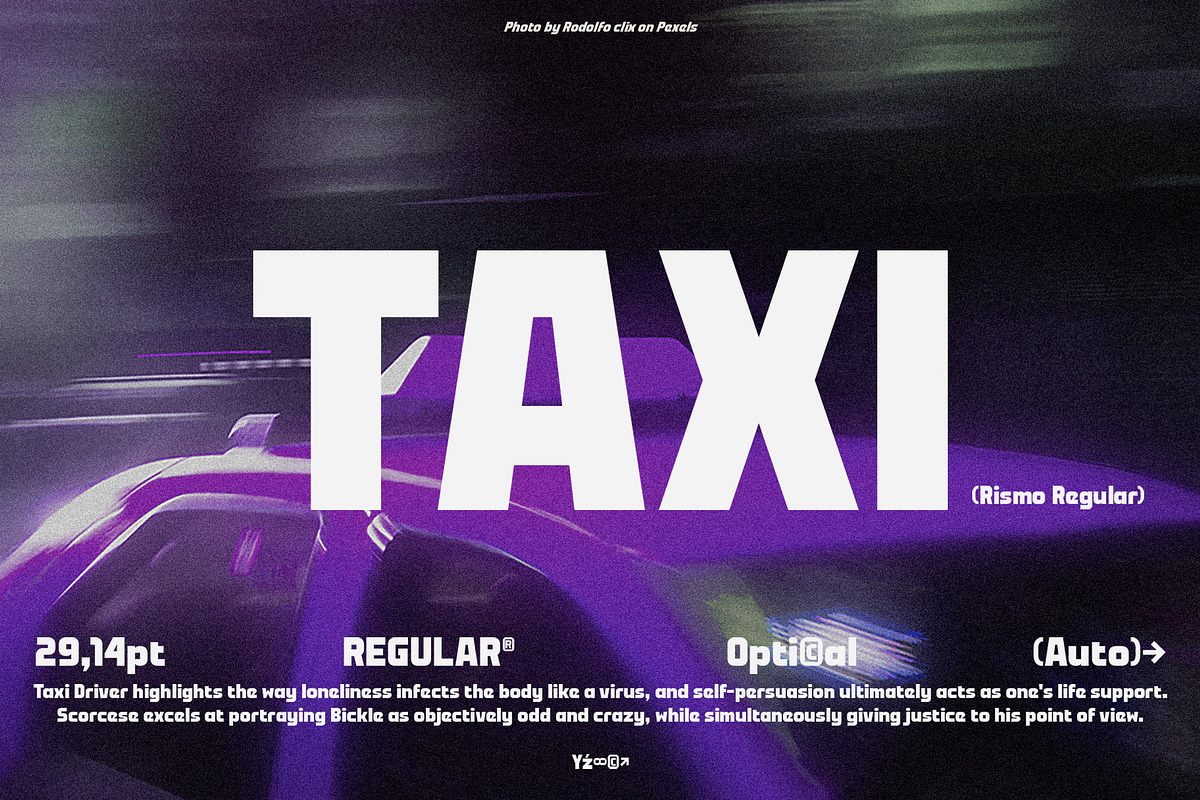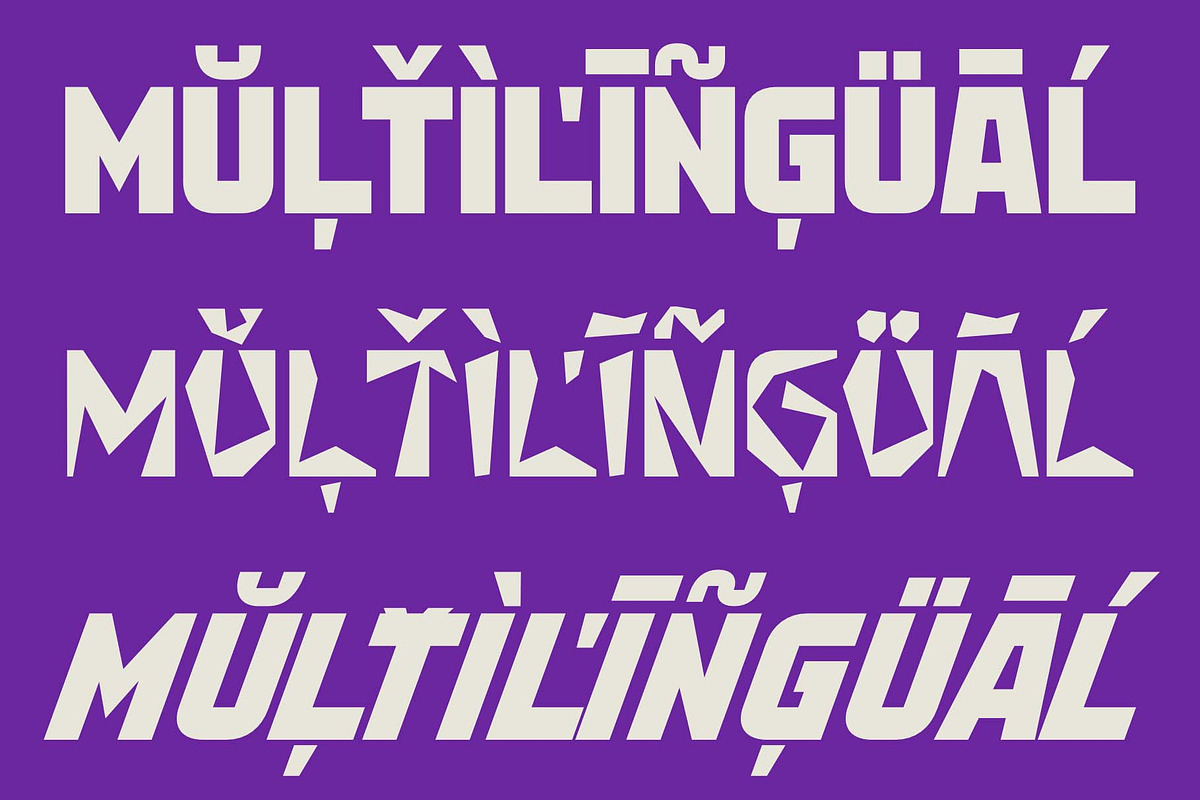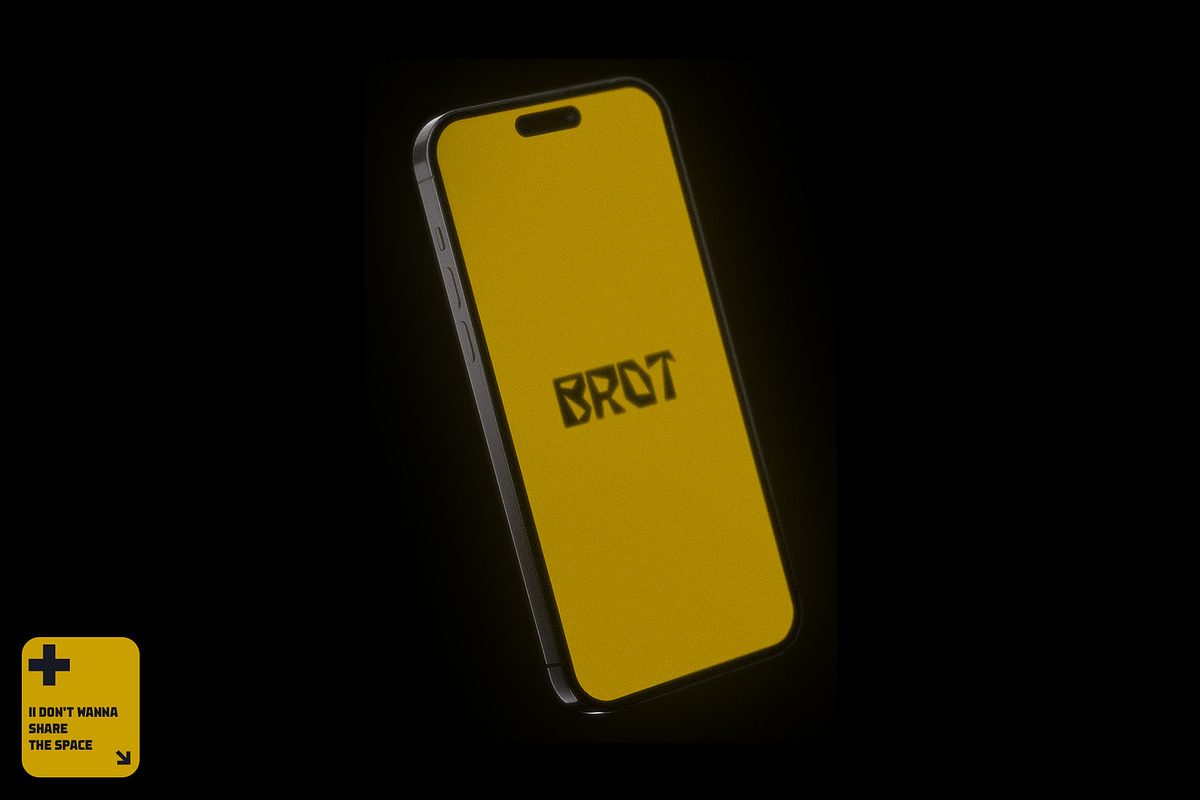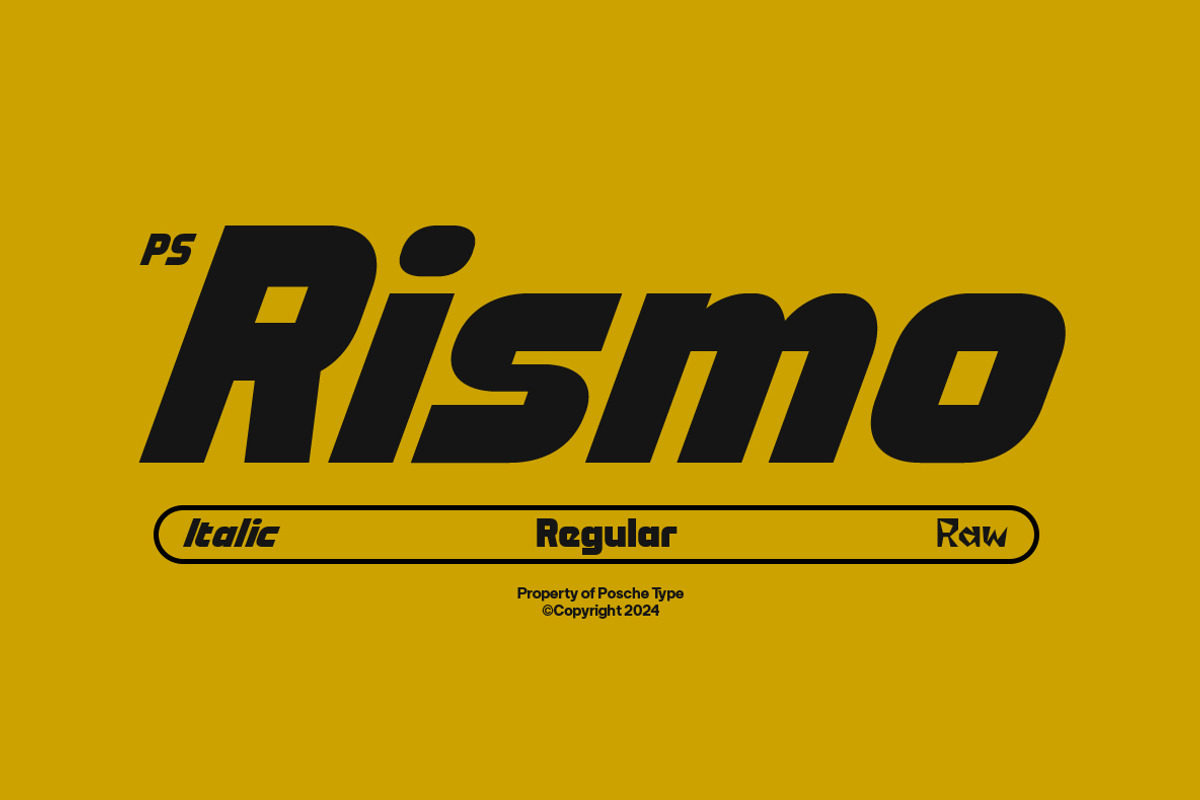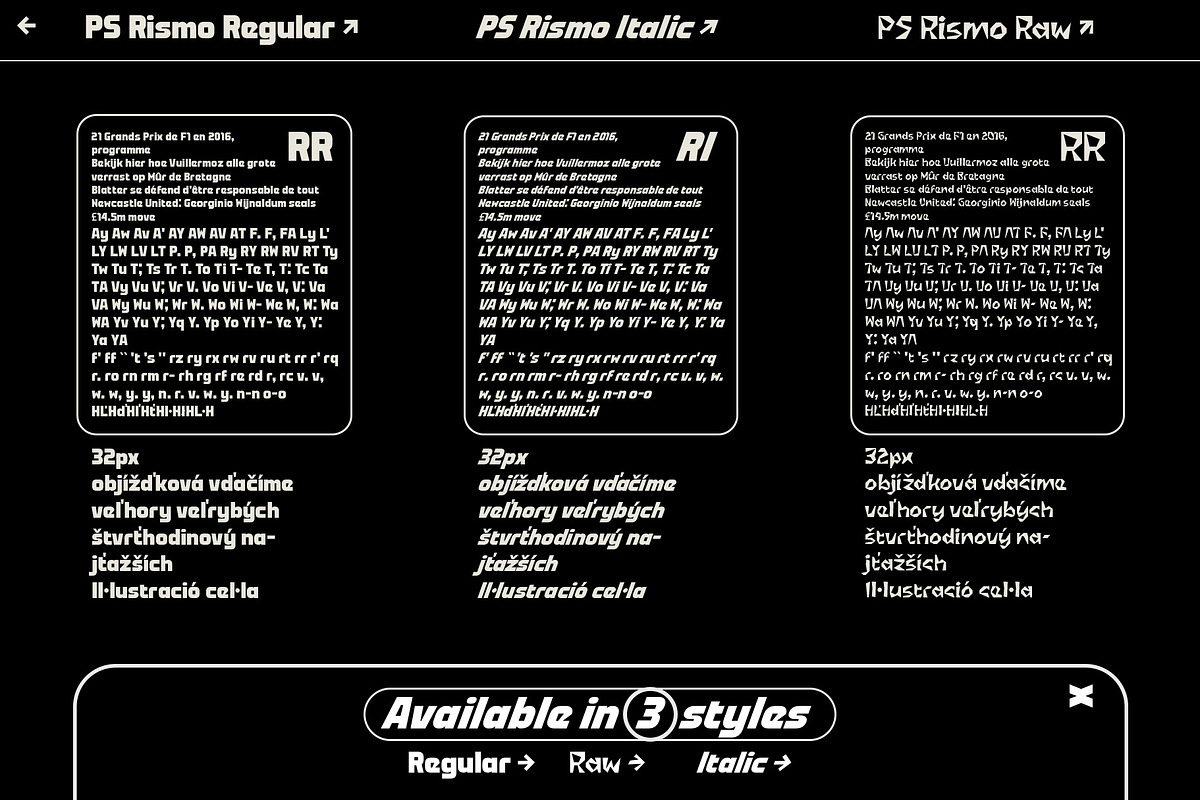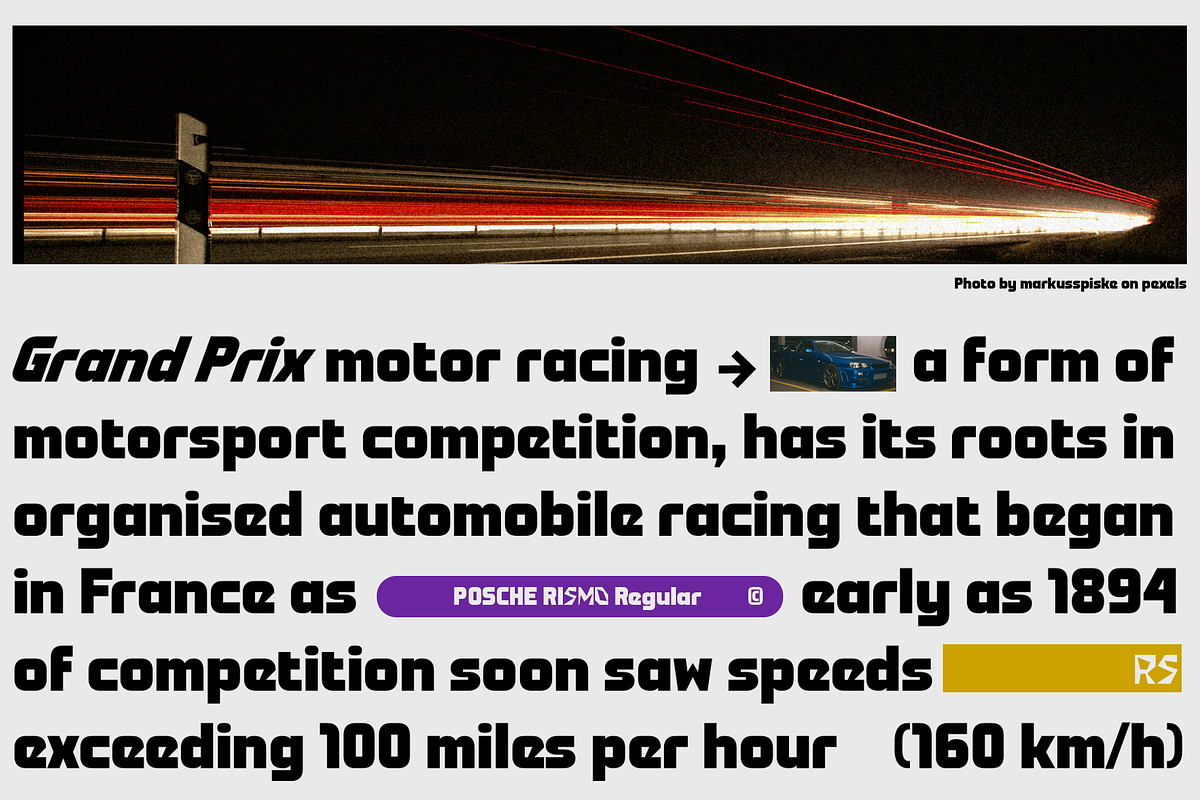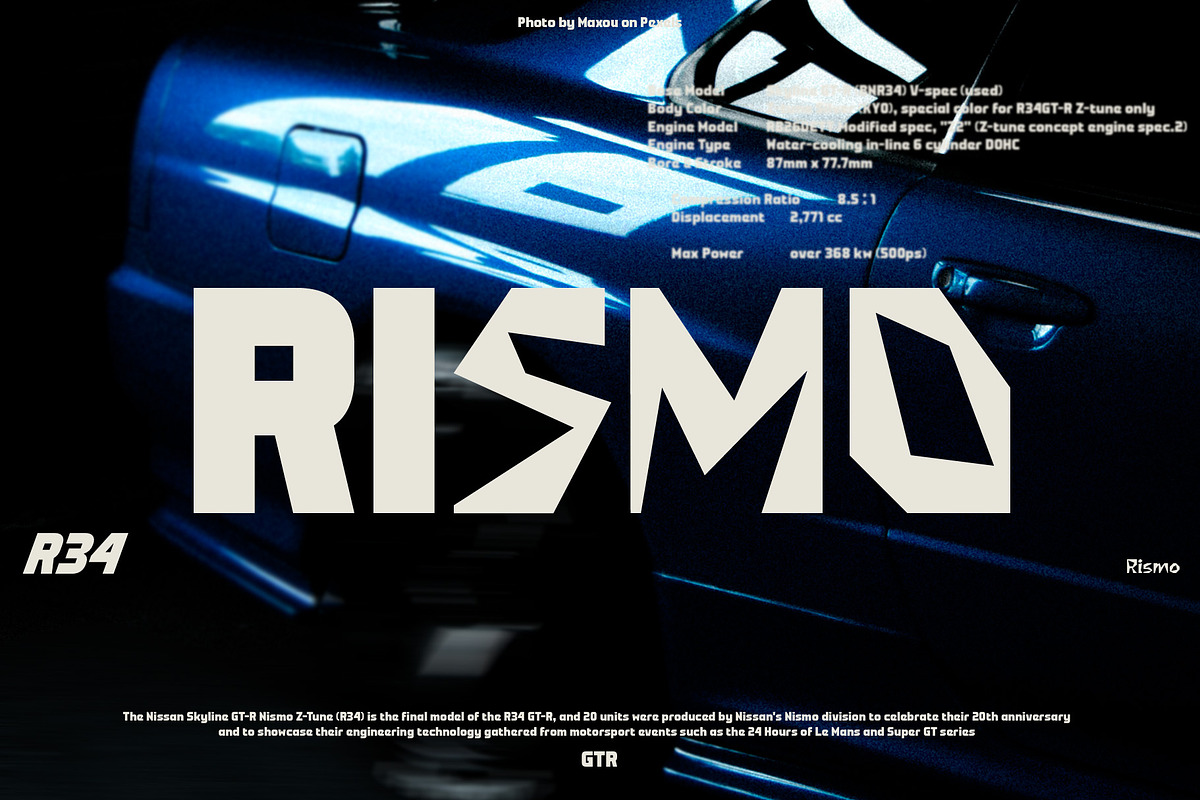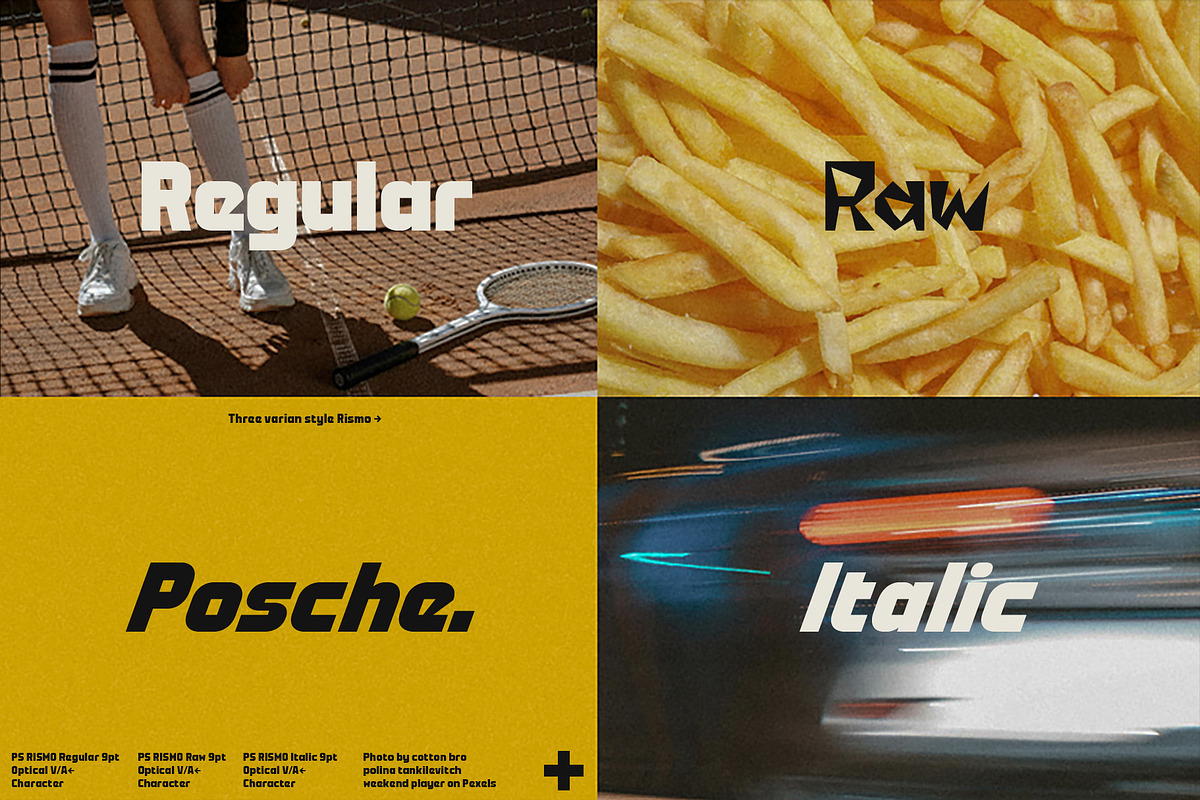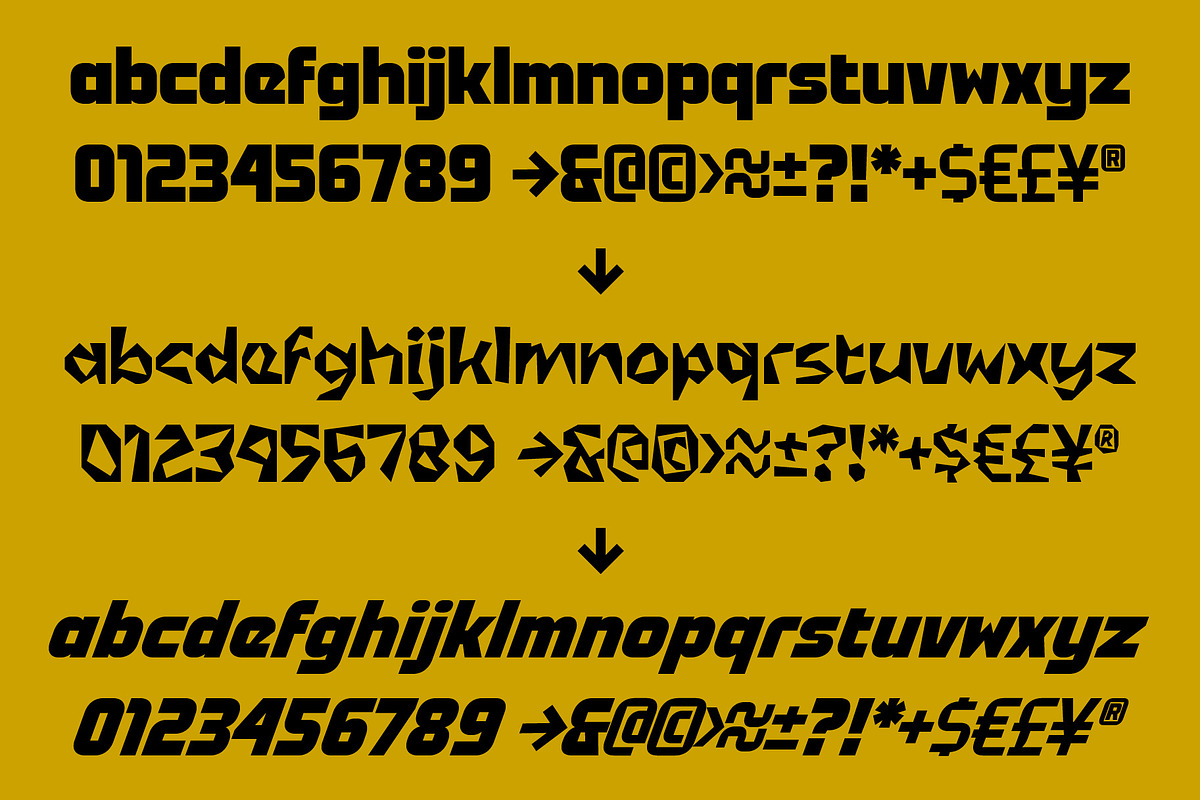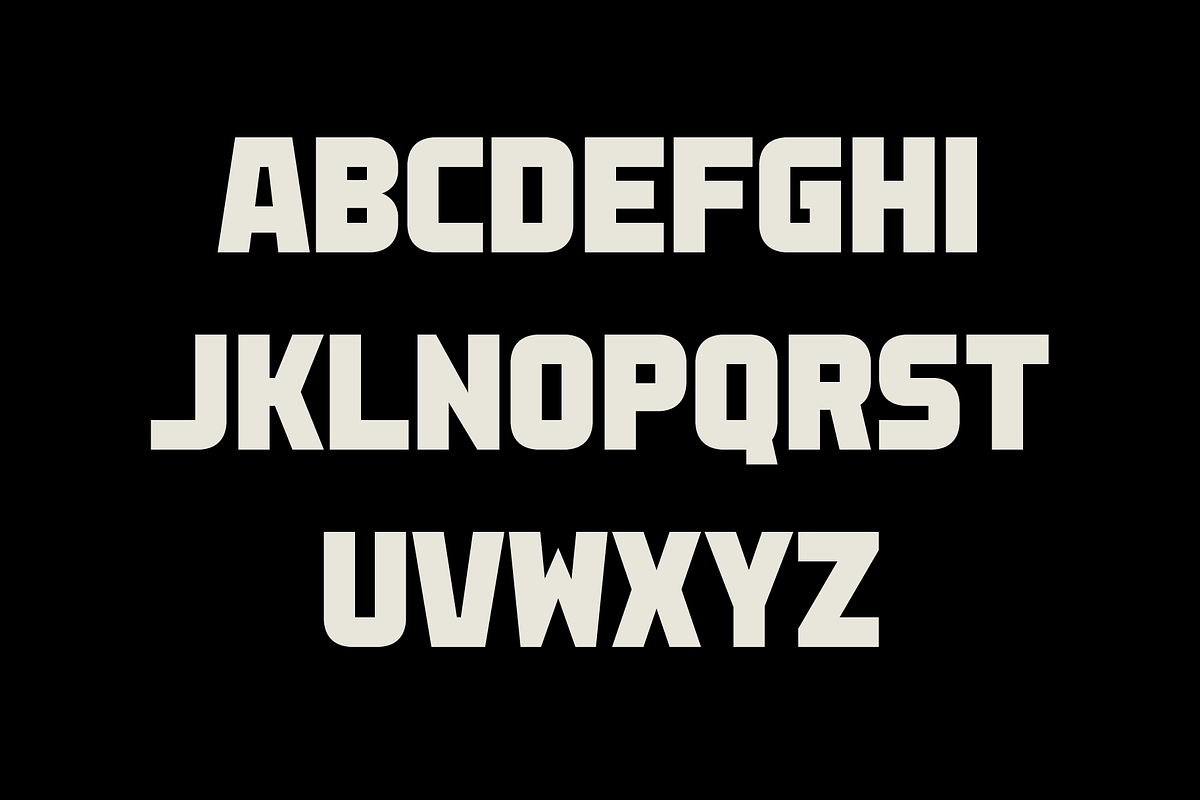
PS RISMO | Sans serif type
PS RISMO Inspired by racing sports style with an athletic, italic touch, it comes in three variations: Regular, Italic, and Raw. Each has its own character that can be combined in a single layout. Designed for headlines, titles, large-format prints, and posters
The font’s distinct styles make it suitable for various design needs, from social media graphics to promotional materials.